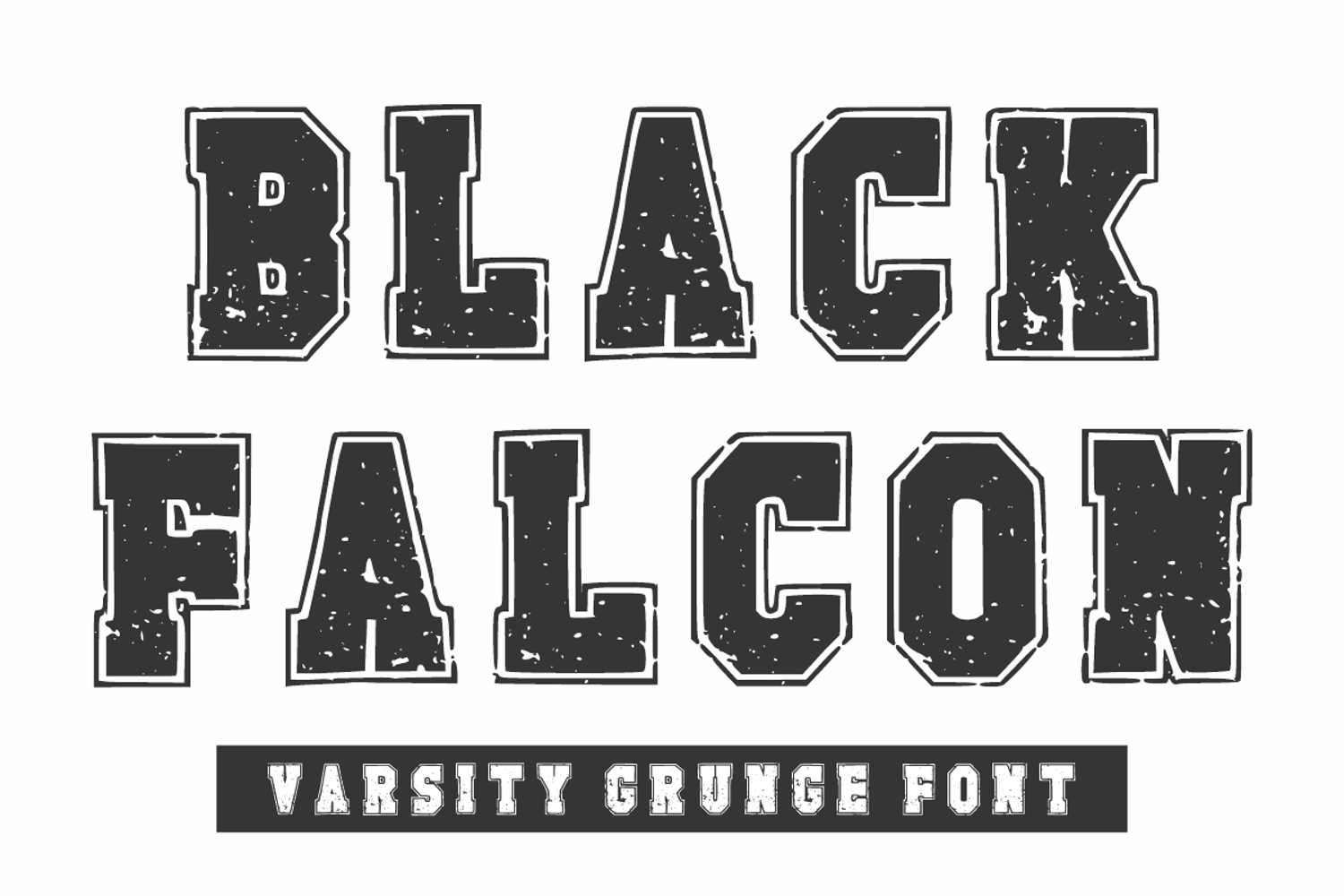
Black Falcon
The Black Falcon Font is a bold and rugged varsity-style typeface with a distressed grunge texture. Its heavy block lettering draws inspiration from classic collegiate and sports typography, while the weathered detailing gives it an edgy, vintage feel. The combination of sharp outlines and rough textures creates a striking balance between strength and worn-in character.
This font is perfect for sports team branding, posters, event titles, apparel design, logos, and retro-style projects. Its commanding presence makes it ideal for headlines and large-scale typography where impact is key.
The overall aesthetic is strong, gritty, and vintage-inspired, making it a versatile choice for designers who want to convey toughness, energy, and bold personality in their work.
Black Falcon